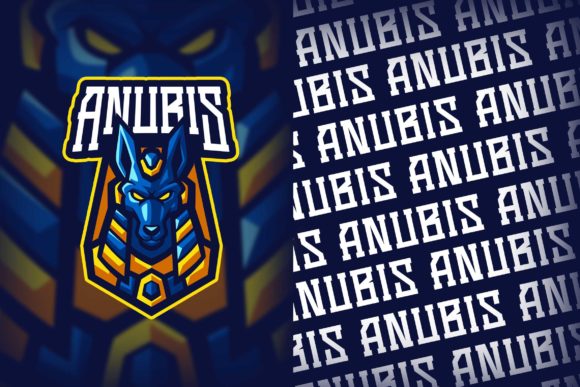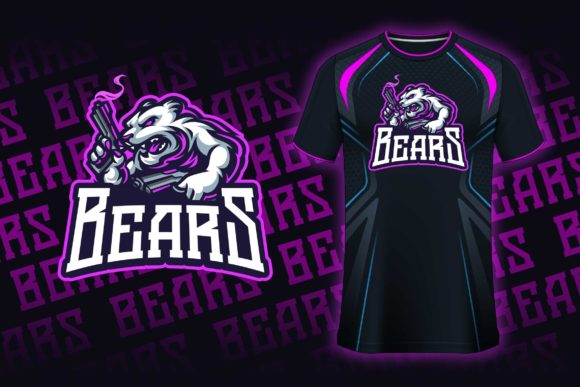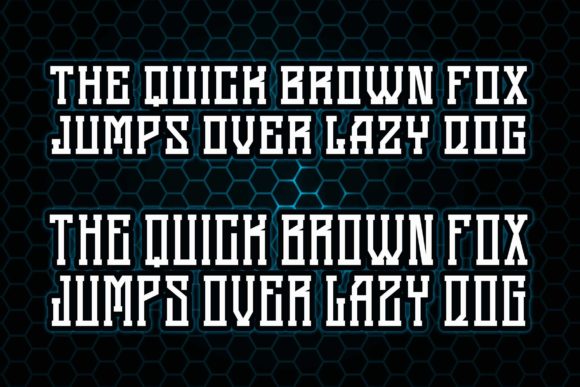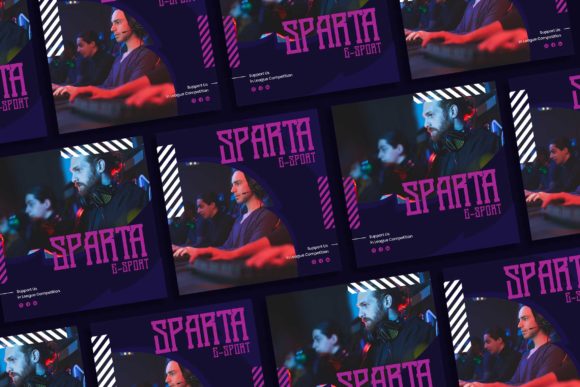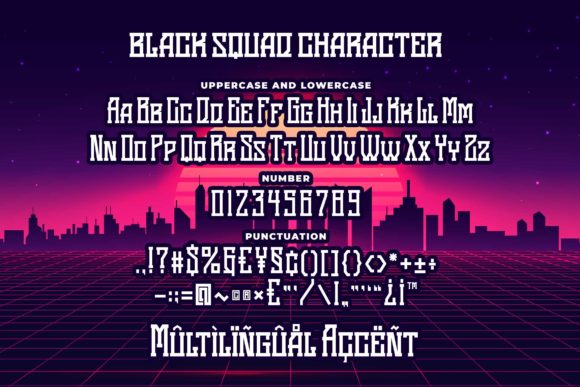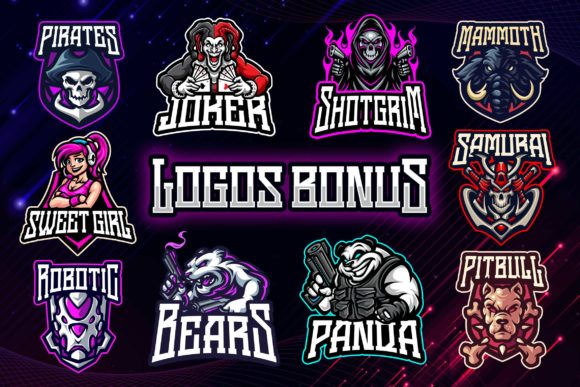
The Power of Black Squad Font: Unlocking Bold Designs
I’ll never forget the time I was working on a project for a client who needed a bold, eye-catching font to match their edgy brand. I scoured the internet for hours, trying out font after font, but nothing seemed quite right. That was until I stumbled upon Black Squad Font. 💥
This unique display font has been a game-changer for my designs, and I’m excited to share its awesomeness with you. Whether you’re a designer, crafter, or creative hobbyist, Black Squad Font is perfect for adding a strong personality to your projects, from games and movies to posters and flyers.
An Honest Review of Black Squad Font
- 💥 **Bold and edgy**: Black Squad Font is perfect for making a statement with your designs.
- ✅ **Highly versatile**: Use it for a wide range of projects, from digital to print.
- 🎨 **Unique character**: The font’s distinctive style sets it apart from more traditional fonts.
- 👍 **Easy to read**: Despite its boldness, the font remains surprisingly legible.
- ⚠️ **Limited use cases**: While Black Squad Font is amazing for display purposes, it may not be the best choice for body text or smaller sizes.
- 🤔 **Some letters may appear too bold**: Depending on your design, certain letters may appear overpowering.
The Backstory Behind Black Squad Font
Black Squad Font was designed with the goal of creating a bold, attention-grabbing font that would add a touch of edginess to any design. The designer, inspired by urban landscapes and street art, aimed to craft a font that would be both modern and timeless.
| Font Name | Black Squad Font |
| Author | Blankids Studio |
Q: What type of projects is Black Squad Font best suited for?
A: Black Squad Font is perfect for display purposes, such as posters, flyers, games, and movie titles.
Q: Is Black Squad Font available in different weights or styles?
A: Currently, Black Squad Font is available in a single weight, but its versatility and range make it suitable for various design applications.
Q: Can I use Black Squad Font for body text or smaller sizes?
A: While Black Squad Font is primarily designed for display purposes, it can be used for smaller sizes, but may not be the most legible choice for body text.